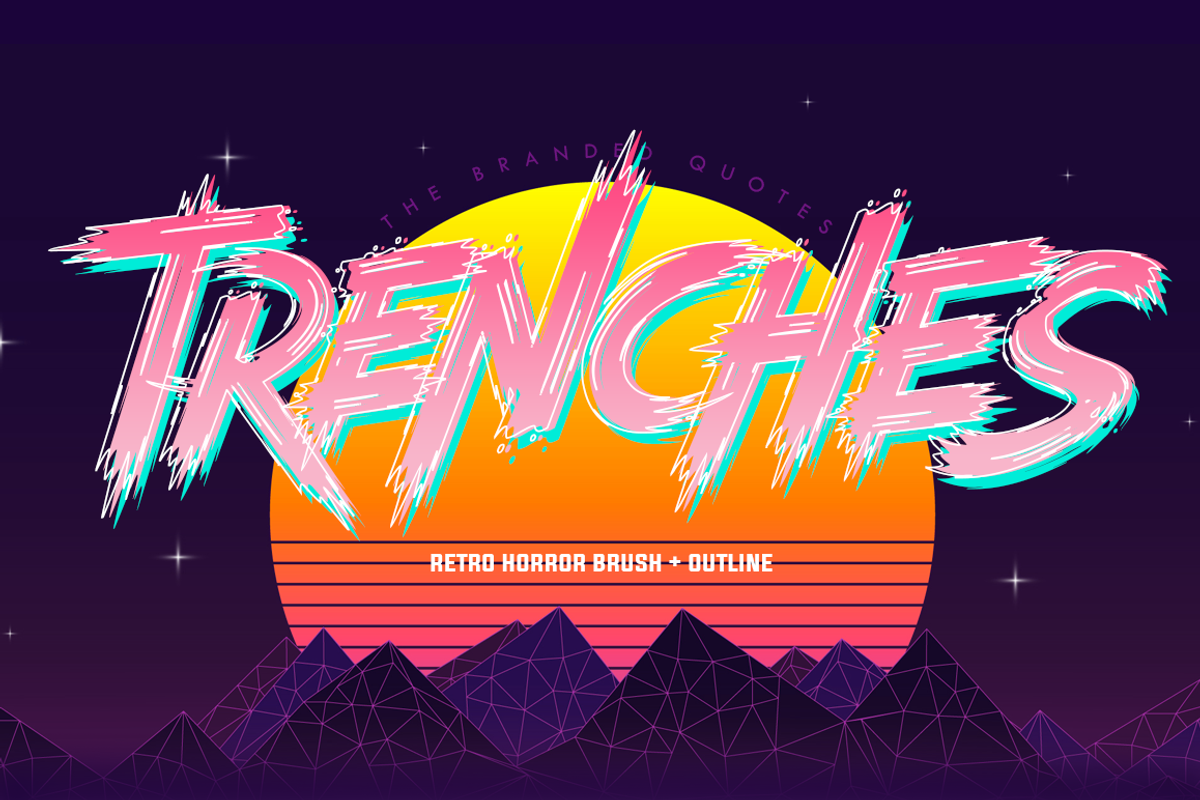
Trenches – Retro Horror Typeface Free Download is a spine-chilling display font inspired by vintage horror films and classic pulp fiction. With jagged edges, distorted letterforms, and gritty textures, this typeface is perfect for Halloween posters, eerie book covers, haunted house branding, and all things spooky.
Trenches – Retro Horror Typeface Free Download combines retro vibes with a terrifying twist, making your designs scream with personality. Whether you're working on movie titles, event flyers, or horror-themed merchandise, this font adds instant drama and fear factor.
Its high-impact design works well in both print and digital formats, grabbing attention wherever it appears. You can test it for free in personal or concept designs, but remember—a commercial license is required for professional use. Embrace the fear and unleash your dark creativity with the Trenches font.